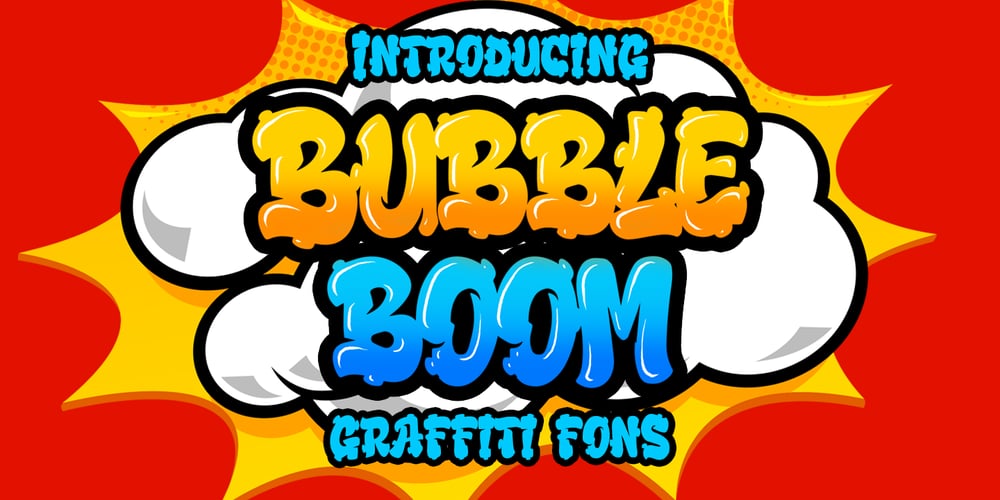
Bubble Boom
Bubble Boom font
Bubble Boom Font Family was designed by Bangkit Tri Setiadi and published by Blankids. Bubble Boom contains 1 styles and family package options. Bubble Boom is inspired by graffiti, and fits well for themes such as graffiti posters, Hip Hop music, kids posters, flyers, children books, cartoons, comics, and more. Features included: Uppercase Lowercase Number Punctuation Multilingual PUA Encode OpenType